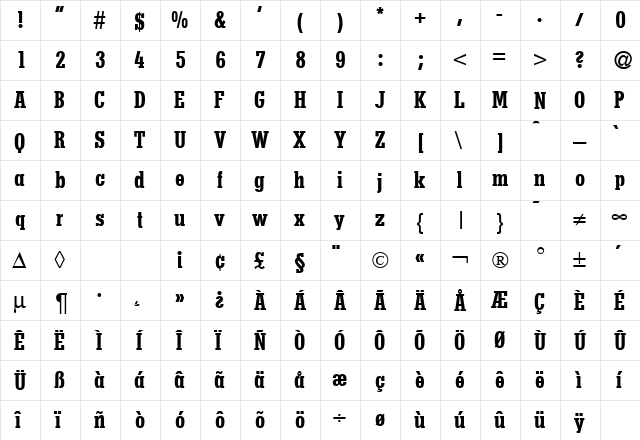
MesaCond DB Bold
Design Context for MesaCond DB Typeface
MesaCond DB offers clean, dependable letterforms without strong stylistic allegiance, making it a practical choice for designers who need flexibility. Its bold stroke weight gives it real presence on the page. The condensed width makes it efficient for tight spaces without sacrificing legibility.